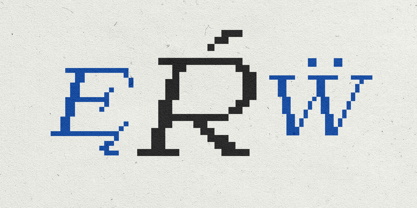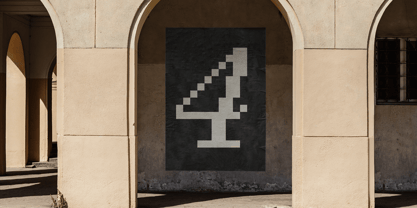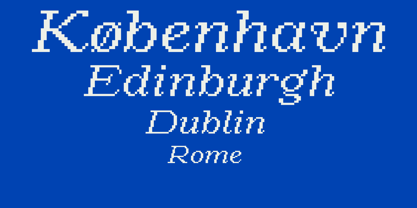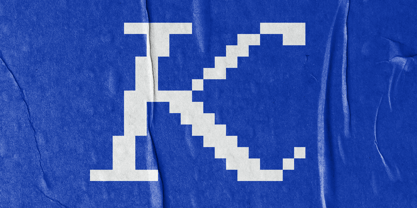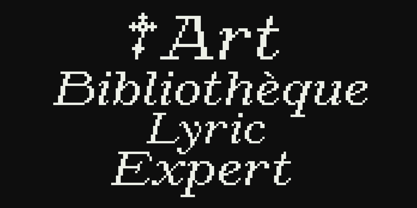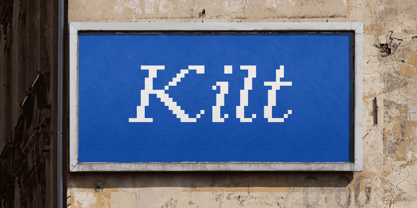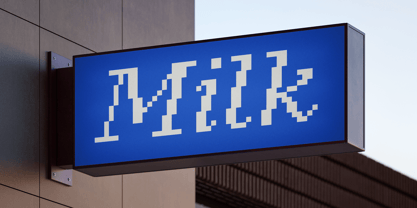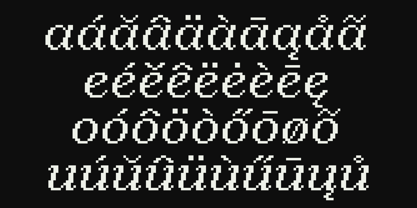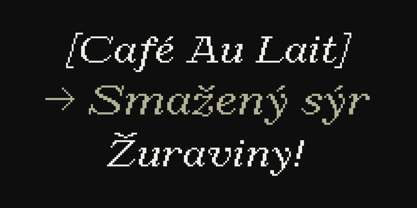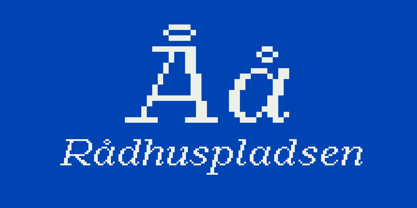
Kilt
Kilt is a pixel serif typeface seamlessly blends retro aesthetics with precise pixel craftsmanship, evoking both digital nostalgia and the charm of cross-stitch embroidery. From game design and music posters to craft branding and editorial identity, Kilt brings texture, wit, and structure wherever typographic character is needed.
Designed for:
• Projects that celebrate both heritage and sharp digital expression
• Cultural branding and artisanal packaging
• Festival and concert posters
• Editorial design
• Game UI and nostalgic interfaces
• Retro-futuristic experiments